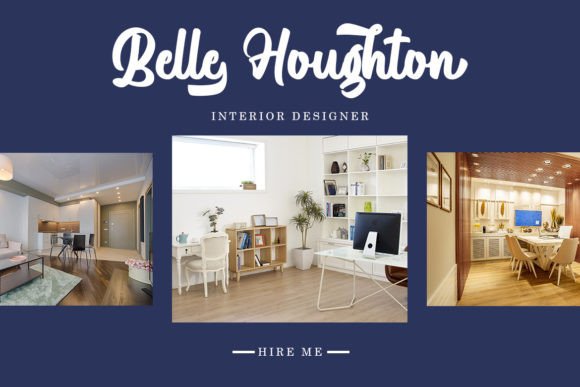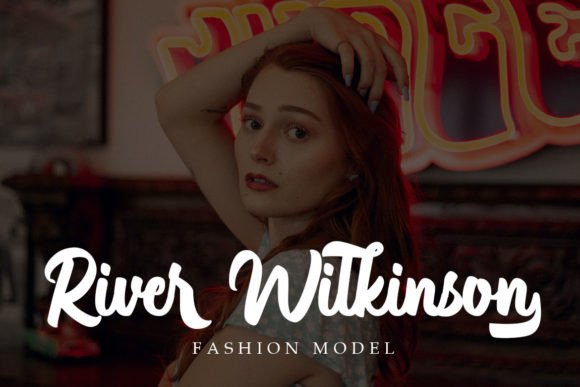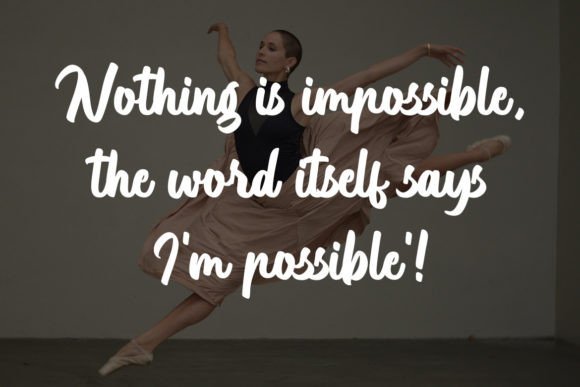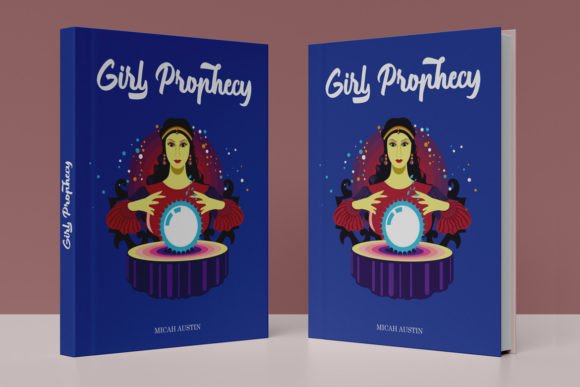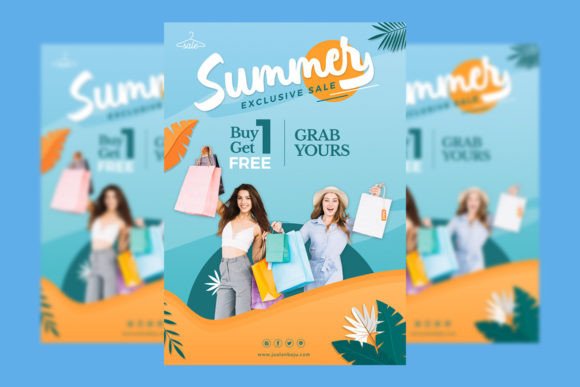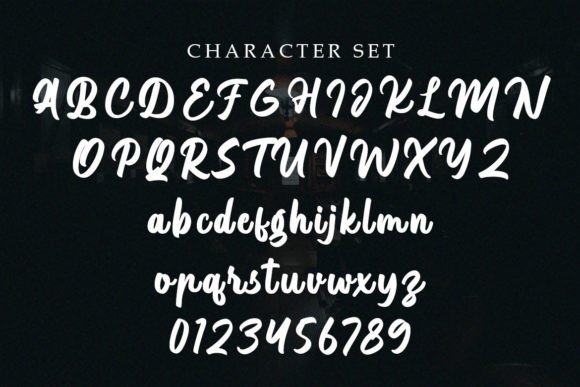
The Magical World of Argent Font: A Designer’s Delight
I still remember the time I was working on a client project, pouring my heart and soul into creating the perfect Instagram post. The design was almost complete, but something was missing – the right font. I scoured the internet, tried countless fonts, but none seemed to fit the bill. That’s when I stumbled upon Argent Font, and it was love at first sight! ✨ In this article, I’ll share my experience with this magical script font and explore its features, uses, and alternatives.
An Honest Review of Argent Font
So, what makes Argent Font so special? Let’s dive into the good stuff and a few quirks I’ve discovered.
- ✨ Elegant and sophisticated design, perfect for high-end projects
- ✅ Extensive OpenType features, including glyphs and stylistic alternates
- 🎨 Highly versatile, suitable for various design applications, from Instagram posts to calligraphy scripts
- 💻 Works beautifully in digital and print formats
- 🤔 Some users may find the font a bit too ornate for very casual projects
- ⚠️ Limited availability of certain special characters
The Story Behind Argent Font
While I couldn’t find much information on the designer’s background, it’s clear that Argent Font was crafted with love and attention to detail. The font’s creator aimed to design a script font that would add a touch of elegance to any project, and I believe they’ve succeeded.
Q: What is Argent Font best used for?
A: Argent Font is versatile and can be used for various design applications, including Instagram posts, calligraphy scripts, and high-end projects.
Q: Is Argent Font suitable for body text?
A: While Argent Font is beautiful, it’s more suitable for headings and titles. For body text, a clearer font may be more readable.